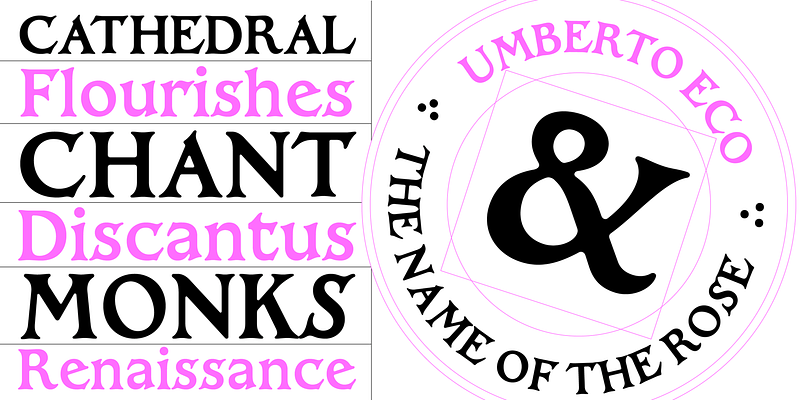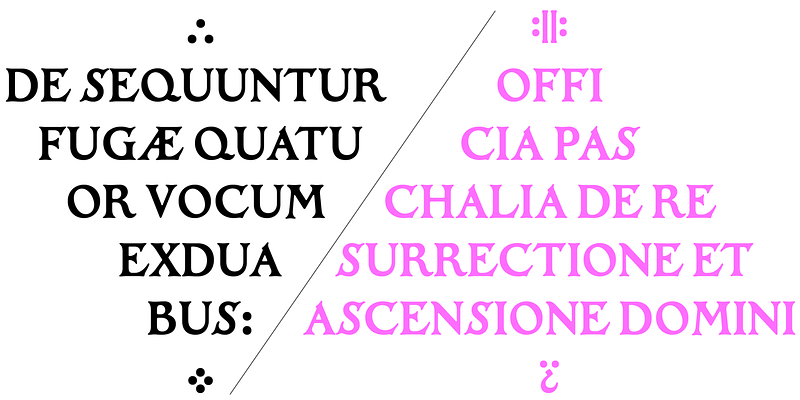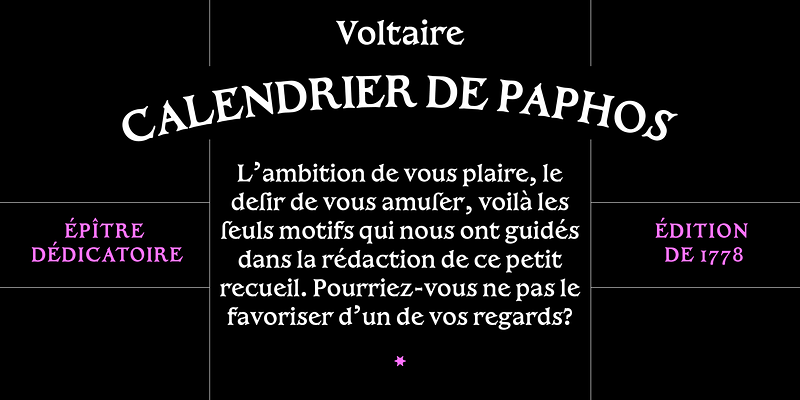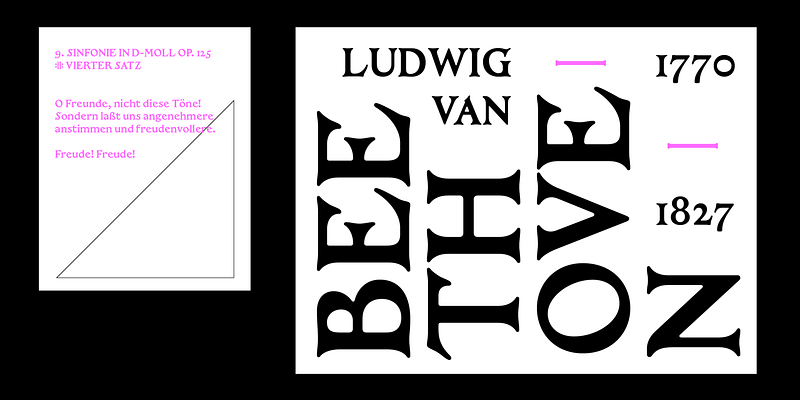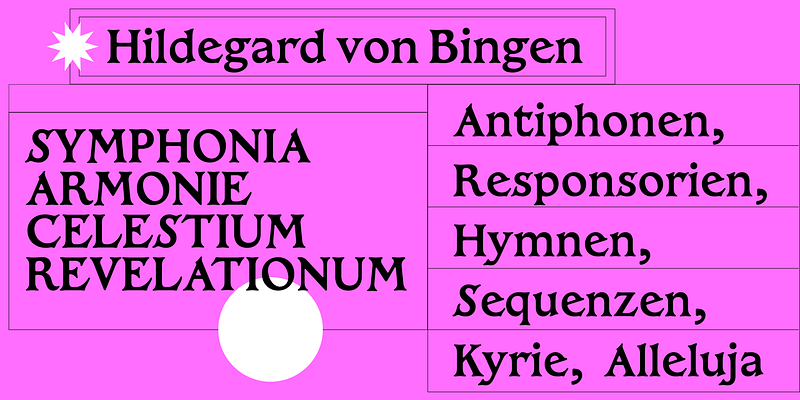
With its peculiar and rough stylistic features, Rhau is a type revival based on four woodcuts used on four title pages of the Officia Paschalia, a collection of masses and choral compositions printed by Georg Rhau in Wittenberg in 1539. Originally intended for a selected audience of composers, this digital revival is an inspiration for display work